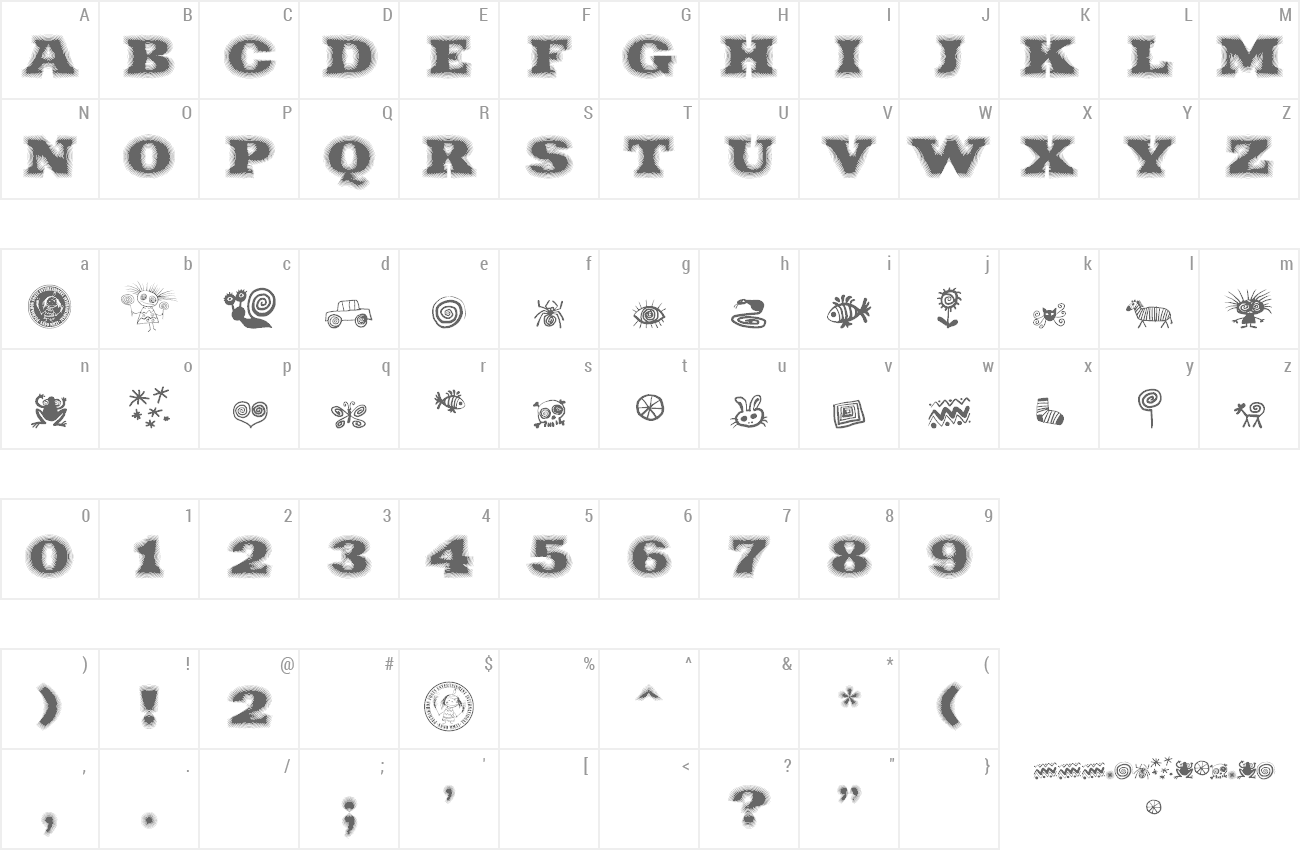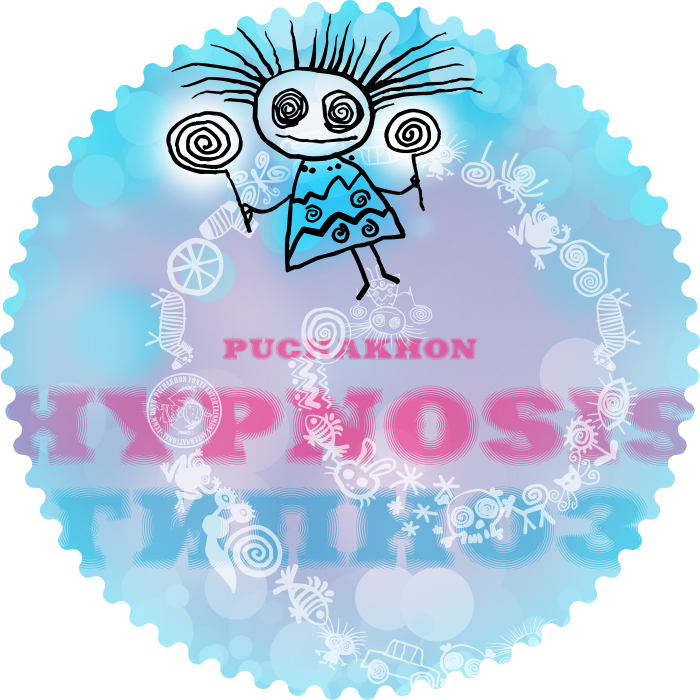
| Font name: | Puchakhon Hypnosis |
| Author: | A.z. |
| Note by A.z. | |
| Meet the new Latin/Cyrillic font "Puchakhon Hypnosis"! While all the letters are CAPS the lower case has a bonus - funny pictures that Puchakhon dreamed under hypnosis. |